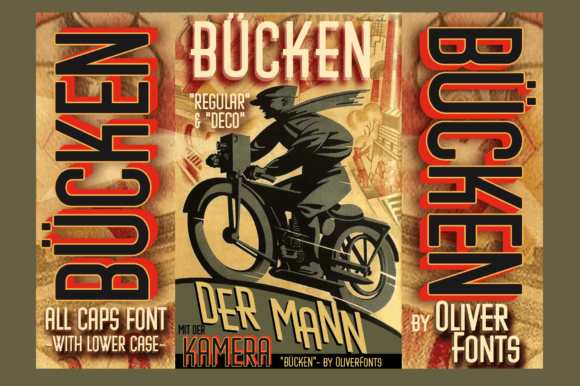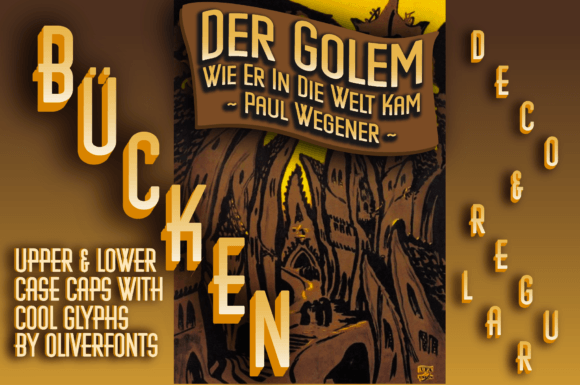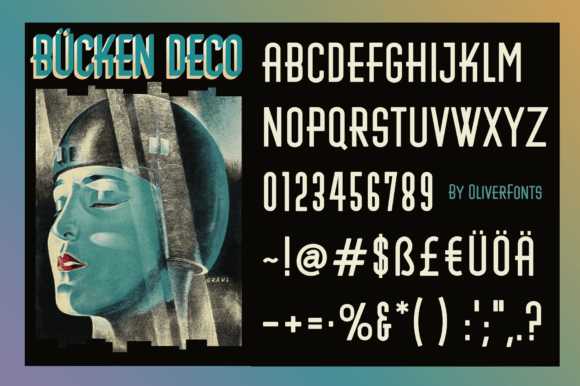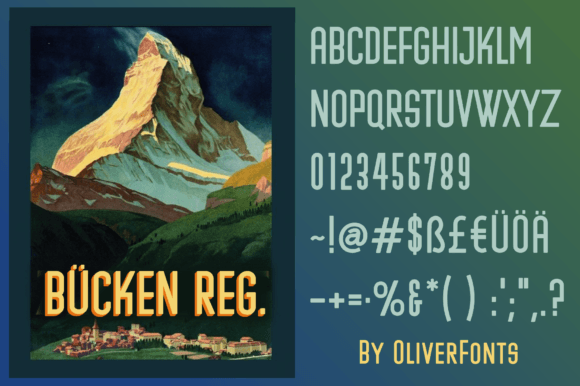
Discover the Elegance of Bucken Font: A Versatile Sans Serif for Your Creative Projects
In the vast universe of typography, finding the perfect font that combines style, versatility, and professionalism can be a daunting task. However, for those in the know, Bucken Font stands out as a beacon of excellence. Described aptly as a cool and neat sans serif font, Bucken embodies a classy and professional aesthetic that makes it incredibly adaptable for a wide array of projects. Whether you’re a designer working on a branding campaign, a crafty individual creating handmade goods, or a digital artist looking for the perfect typography to complement your artwork, Bucken Font is a choice that promises to elevate your creations.
The Essence of Bucken Font
Bucken Font is more than just a typeface; it’s a statement of elegance and simplicity. Its sans serif design gives it a clean and modern look, making it perfect for projects that demand a fresh and contemporary feel. The neatness of Bucken ensures that your message is conveyed clearly and effectively, without any distractions. This clarity, combined with its classy appearance, makes Bucken an excellent choice for both digital and print media.
One of the key advantages of Bucken Font is its incredible versatility. Its professional look and feel make it suitable for a broad spectrum of projects, including:
- Branding and Logos: Create a lasting impression with a font that exudes professionalism and elegance.
- Digital Media: Enhance your website, blog, or social media posts with a clean and modern typeface.
- Print Materials: From business cards to brochures, Bucken ensures your print materials stand out.
- Art and Craft Projects: Add a touch of sophistication to your handmade crafts, journals, or art pieces.
Why Choose Bucken Font?
There are several reasons why Bucken Font should be your go-to choice for your typography needs:
- Legibility: Its clear and simple design ensures that your text is easily readable.
- Adaptability: Bucken’s neutral appearance allows it to blend seamlessly with various design styles.
- Professionalism: The font’s classy look gives your projects a professional edge.
- Aesthetic Appeal: Bucken’s modern sans serif design adds a touch of elegance to any project.
How to Use Bucken Font Effectively
To make the most out of Bucken Font, consider the following tips:
- Pair it Wisely: Combine Bucken with other fonts to create a dynamic and visually appealing design.
- Play with Sizes: Use different font sizes to create a hierarchy of information and add depth to your design.
- Experiment with Colors: While Bucken looks great in black and white, experimenting with colors can add a unique touch to your project.
| Font Name | Bucken Font |
Bucken Font is a remarkable typeface that brings together coolness, neatness, and professionalism in a sans serif package. Its versatility and aesthetic appeal make it an invaluable asset for designers, crafters, and anyone looking to add a classy touch to their projects. Whether you’re working on a digital project or a physical craft, Bucken Font is sure to enhance your creations and leave a lasting impression on your audience.